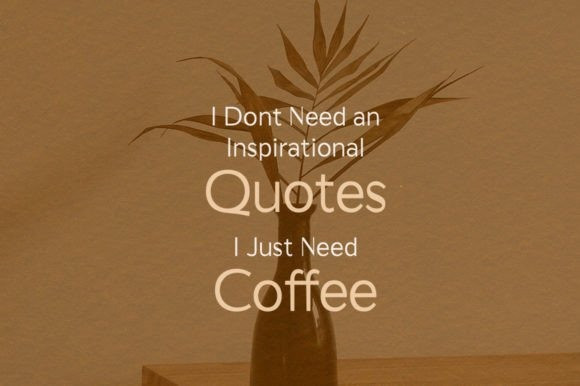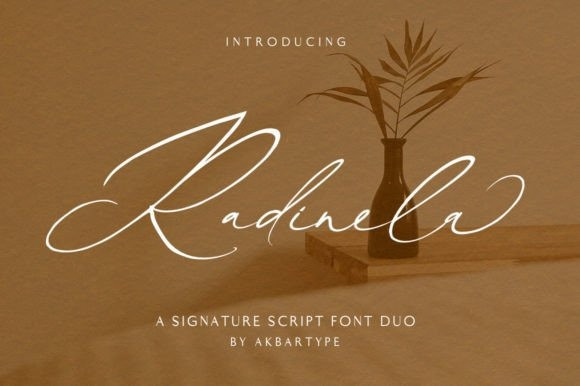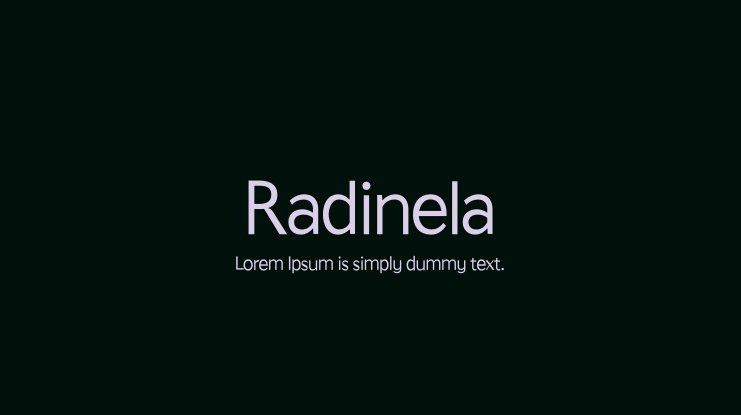
Radinela Font
Radinela Font is a gorgeous and simple signature script font duo. It’s contemporary and fashionable. This elegant font is legible and looks great as a headline or in an introductory text. This font is PUA encoded which means you can access all glyphs and swashes effortlessly!